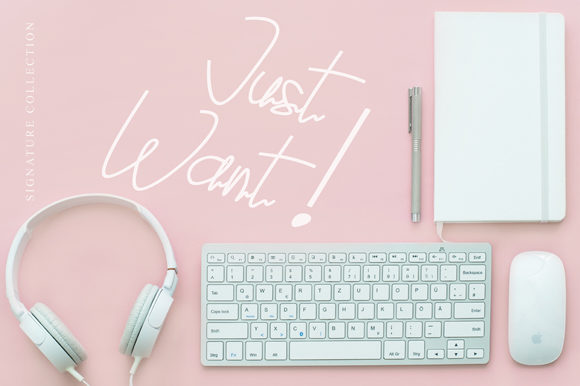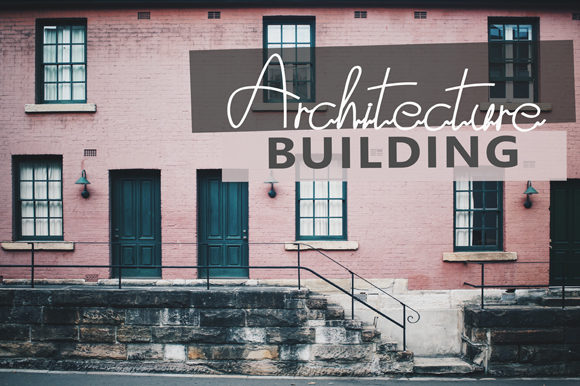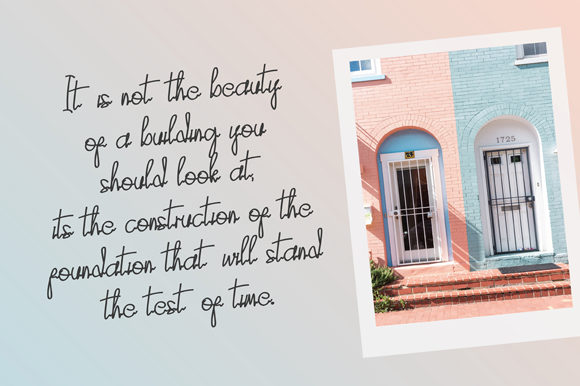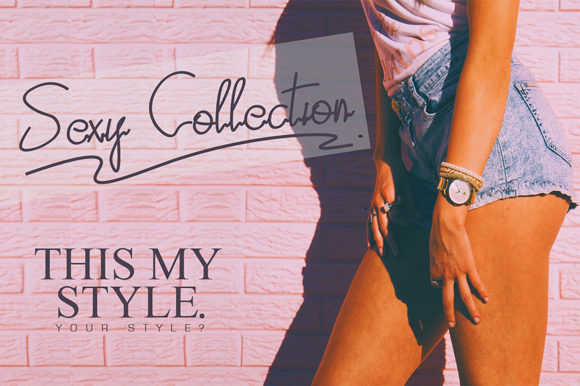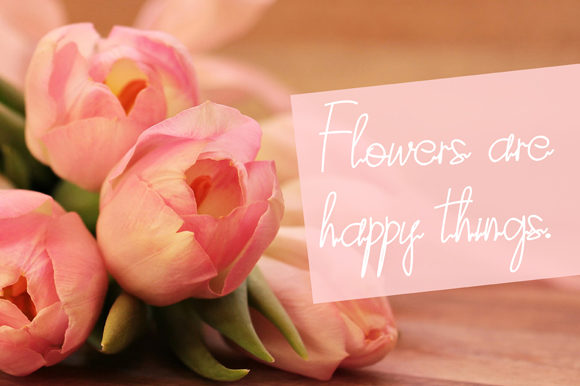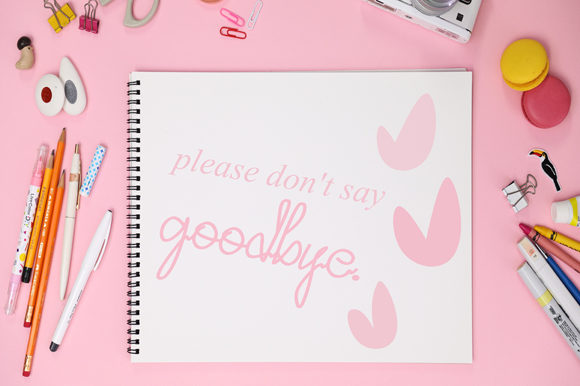
Introducing Attasey Signature Font: Elevate Your Designs with Modern Femininity
In the world of typography, fonts play a crucial role in conveying the tone and aesthetic of a project. For designers and crafters seeking a modern, feminine touch, the Attasey Signature Font is an exceptional choice. This beautifully crafted font is designed to make your text stand out, whether you’re working on branding, packaging, stationery, or any other creative project.
The Beauty of Attasey: A Carefully Crafted Font
Attasey is more than just a font; it’s a statement piece. Every single letter has been meticulously designed to exude elegance and sophistication. The result is a modern feminine font that adds a touch of luxury to any project. The attention to detail in Attasey’s design ensures that your text looks beautiful, making it perfect for projects where aesthetics are paramount.
One of the standout features of the Attasey Signature Font is its versatility. It’s incredibly adaptable, making it suitable for a wide range of projects. Whether you’re creating:
- Branding materials: Use Attasey to create a memorable logo or brand identity that speaks to your audience.
- Packaging designs: Add a touch of elegance to your product packaging with this beautiful font.
- Stationery: Elevate your business cards, letters, and invoices with a sophisticated, modern look.
- Digital content: Make your social media posts, blogs, or website headers stand out with a unique and captivating font.
Why Choose Attasey?
With so many fonts available, why should you choose Attasey for your projects? Here are a few compelling reasons:
- Unique and Modern: Attasey offers a fresh take on feminine typography, making your designs instantly recognizable.
- Elegant and Sophisticated: The careful craftsmanship of each letter ensures your text conveys a sense of luxury and refinement.
- Easy to Read: Despite its elegant design, Attasey remains highly legible, making it perfect for both headings and body text.
- Highly Versatile: Use it across various mediums, from print to digital, without compromising on style or quality.
Tips for Using Attasey Signature Font
To get the most out of Attasey, consider the following tips:
- Pair with Contrasting Fonts: Combine Attasey with a more straightforward, sans-serif font for body text to create visual interest and hierarchy.
- Experiment with Colors: While Attasey looks stunning in black or dark colors, don’t be afraid to experiment with pastel shades or metallic effects to match your brand’s palette.
- Play with Sizes: Use varying font sizes to emphasize certain words or phrases, adding depth and dynamism to your designs.
| Font Name | Attasey Signature Font |
| Author | Up Font Studio |
The Attasey Signature Font is a game-changer for designers and crafters looking to infuse their projects with a modern, feminine touch. Its meticulous design, versatility, and elegance make it an invaluable asset in your typography arsenal. Whether you’re aiming to create a lasting brand impression, craft beautiful packaging, or simply add some flair to your digital content, Attasey is the perfect choice. Explore the possibilities with Attasey today and elevate your designs to new heights of sophistication and style.
Discover the beauty of Attasey and transform your creative projects with a font that truly makes a statement.